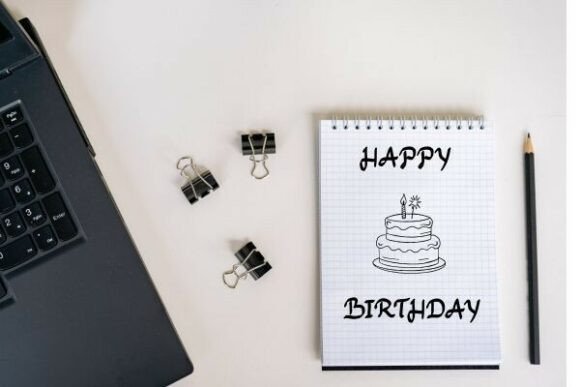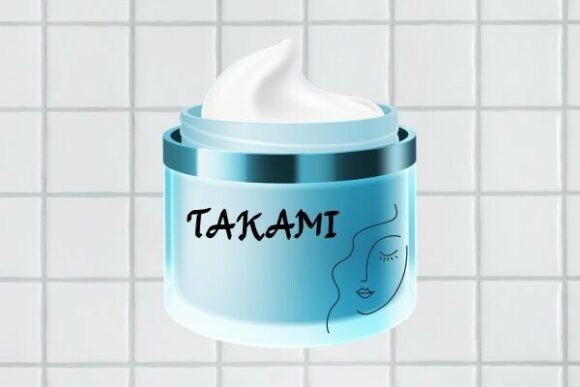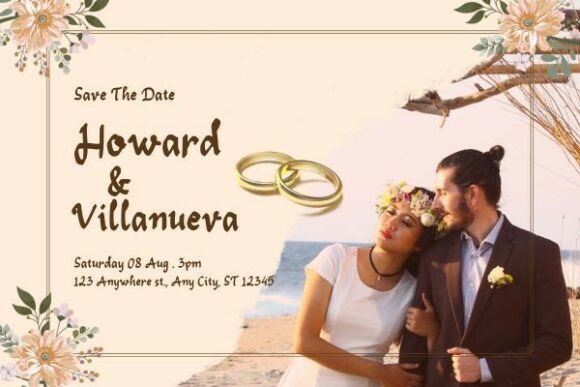
Introduction to Breadfruit Font
Breadfruit is a distinctive, quirky handwritten font characterized by its rhythmic, brush-like strokes and rustic elegance.
The typeface features a variable stroke weight that mimics natural ink flow, with sharp terminals and slightly irregular, expressive character forms Its personality is defined by a blend of casual handwriting and sophisticated artistry, making it highly legible yet full of unique character.